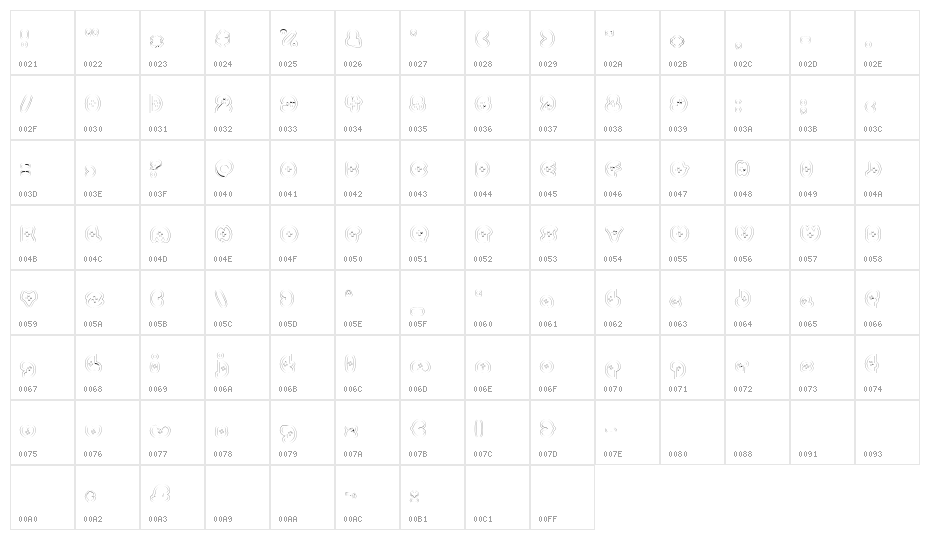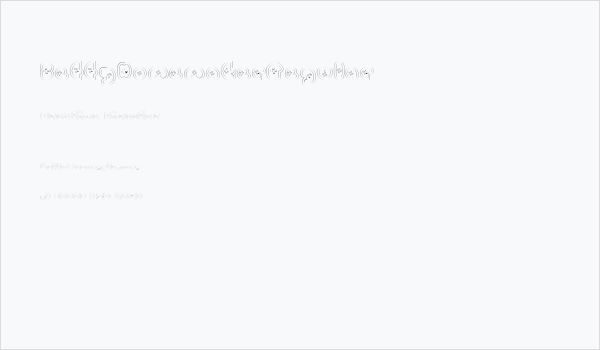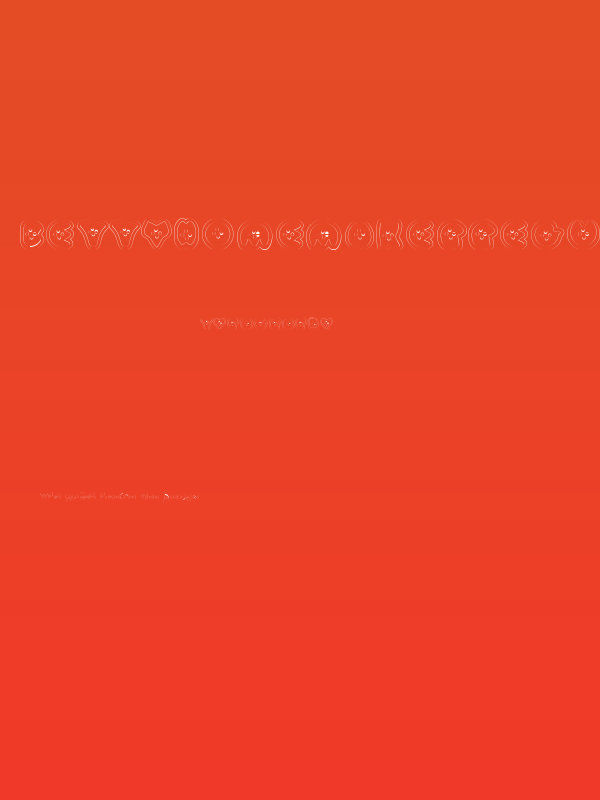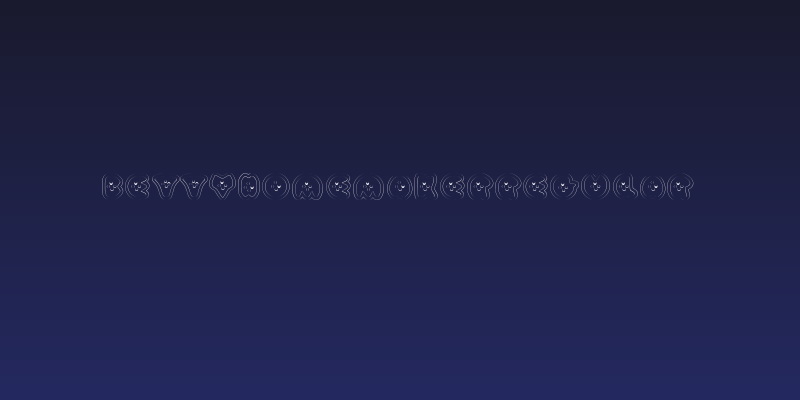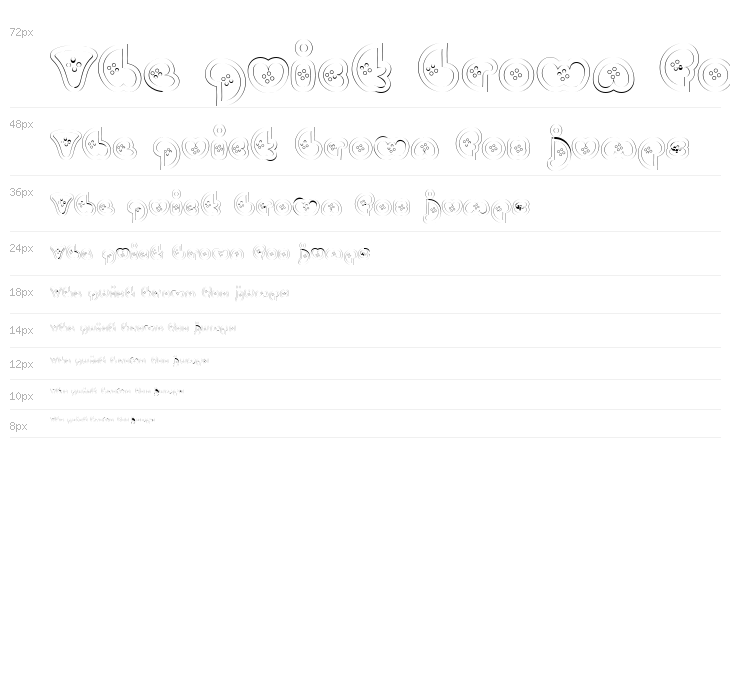
BettyHomemakerRegular Font
BettyHomemakerRegular Description
This playful and whimsical font features characters that resemble buttons sewn onto fabric, giving it a crafty and homemade feel. Each letter is enclosed in a rounded shape, with a distinct outline that adds depth and dimension. The font includes both uppercase and lowercase letters, numbers, and a variety of special characters, all maintaining the button motif. The design is consistent throughout, with a focus on creativity and fun, making it ideal for projects that require a touch of charm and personality.
| Overall Style | Playful, Whimsical |
| Proposed Projects | Ideal for children's books, craft projects, DIY blogs, and playful branding materials. |